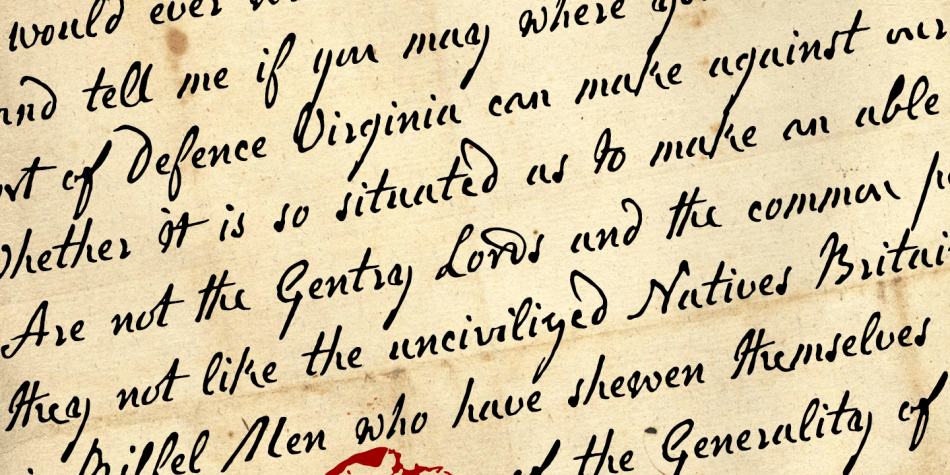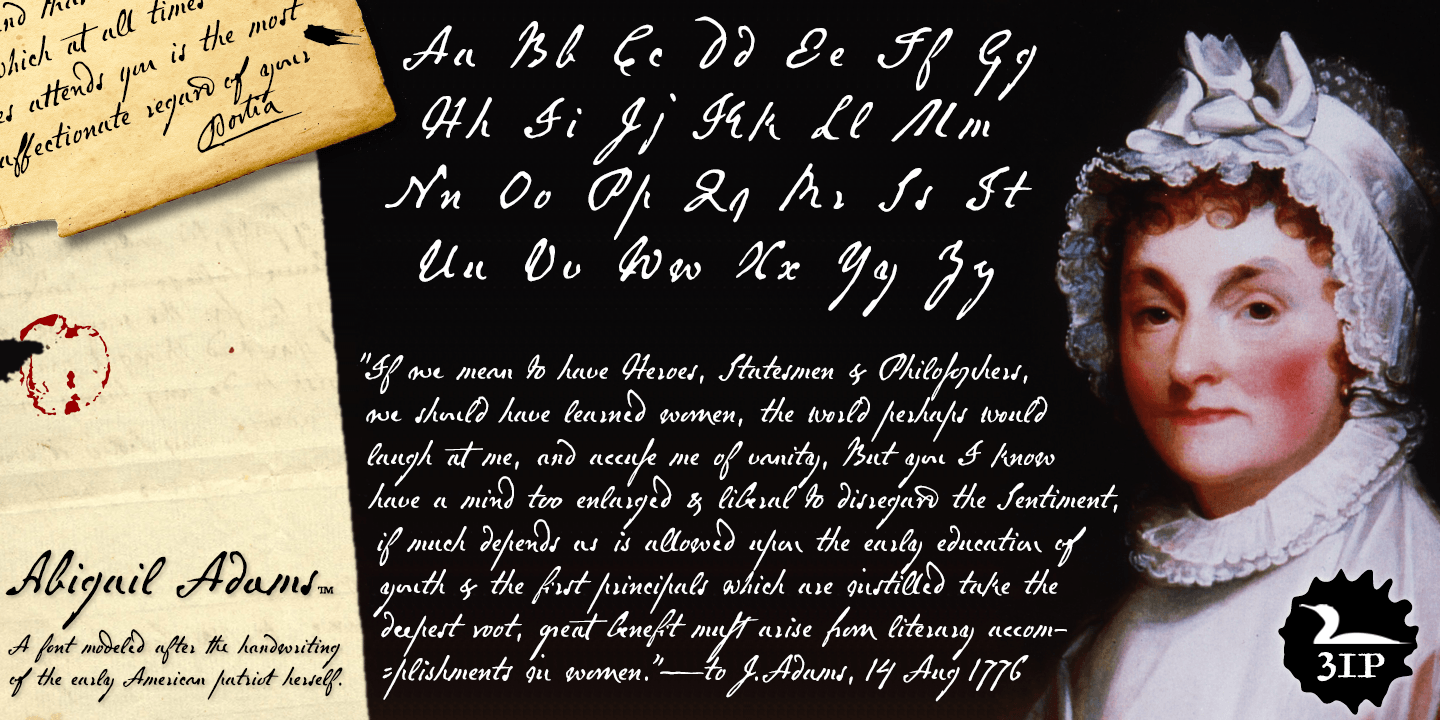
Abigail Adams
About Abigail Adams
"My Dearest Friend" is how she began nearly all her letters to her husband, John. I refer, of course, to Abigail Smith Adams, first Second Lady and second First Lady of the United States. Her famous correspondence with John Adams produced nearly…